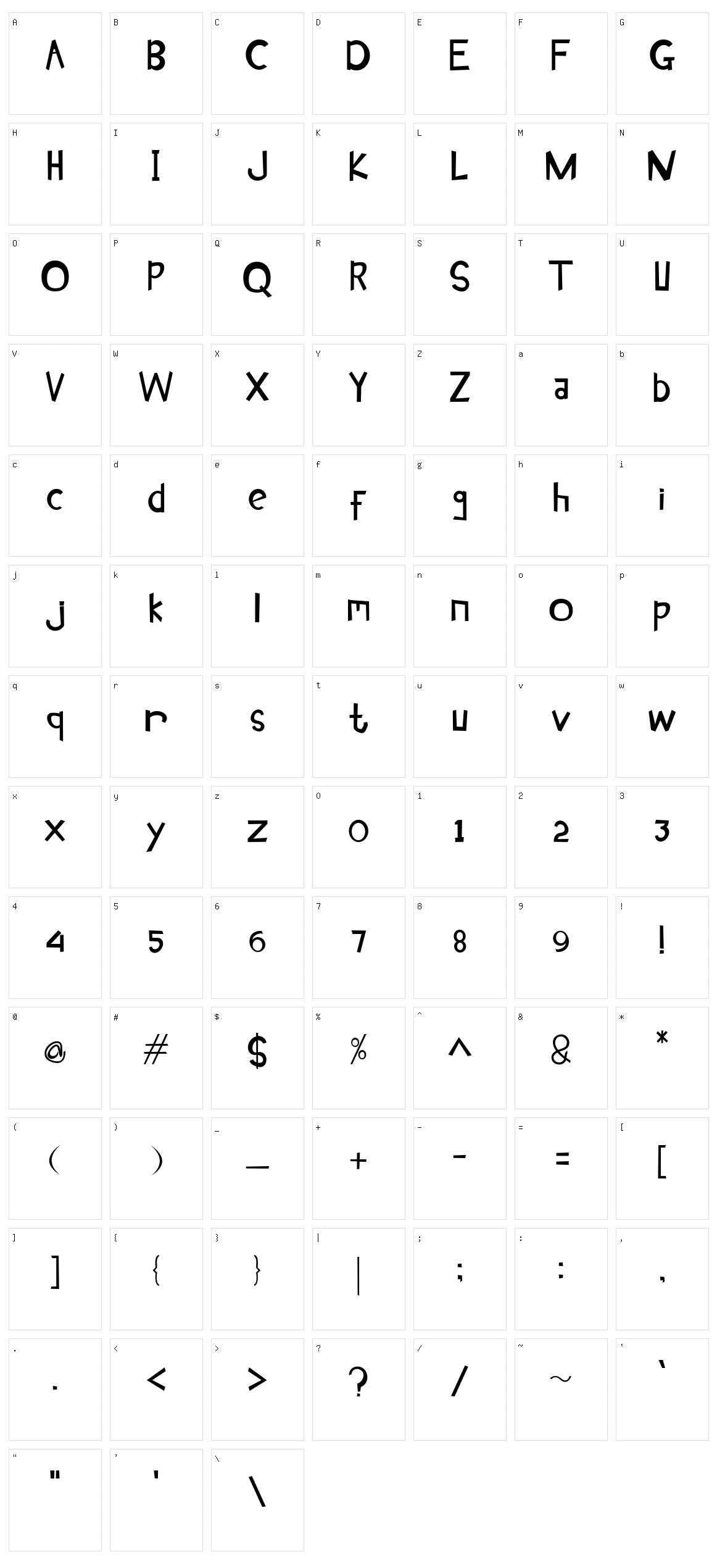
The free font Kungfu Cartoon is carefully designed by Akbar Muharram, showcasing a thoughtful balance of creativity and usability and falls under the Cartoon font style. When you download the ZIP file, it contains only 27.82 KB of font files, making it lightweight and quick to download. Please review the license details below to understand permitted usage and distribution rights. If license information is not available, we recommend using this font for personal projects only or contacting the author directly for commercial usage permissions.